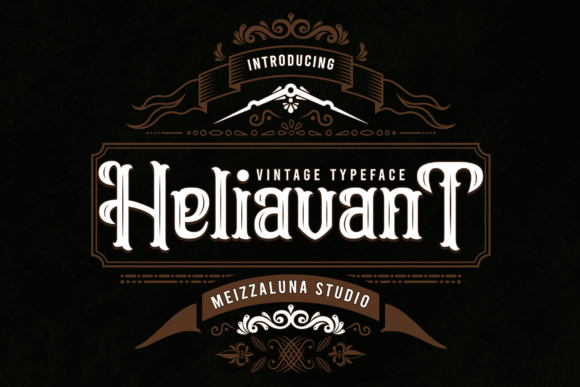
Behold, Heliavant Font – A Masterpiece of Dark Elegance and Victorian Charm
Step into a world of mystique and intrigue with Heliavant Font, the ultimate blackletter font designed to capture hearts and turn heads. Crafted by the visionary meizzalunadesign, this font transcends the boundaries of ordinary typography, offering a captivating fusion of timeless elegance and modern sophistication.
Heliavant's intricate serif characters exude an aura of sophistication, evoking the charm of Victorian-era artistry. Its sweeping curves and delicate flourishes dance across the page, creating a visual symphony that captivates the senses. Whether you seek to craft eye-catching headlines or add a touch of elegance to your designs, Heliavant Font stands ready to unleash your creativity.
With Heliavant as your design companion, you'll embark on a journey of boundless possibilities. Create labels that whisper tales of forgotten times, posters that evoke the grandeur of yesteryear, and banners that command attention with their timeless allure. Heliavant's versatility knows no bounds, making it the perfect choice for a plethora of projects, from branding and packaging to website design and social media graphics.
But Heliavant is more than just a font – it's an experience. Its evocative nature transports you to a realm of imagination and wonder, where words take on a life of their own. As your fingers glide across the keyboard, Heliavant's characters become an extension of your creative spirit, transforming your designs into works of art.
So, if you yearn for a font that captivates, entices, and evokes an era of timeless elegance, look no further than Heliavant Font. Its exquisite design and versatility will leave you breathless, allowing you to create designs that resonate with your audience and leave a lasting impression. Embrace the darkness, embrace the intrigue, and unleash your creativity with Heliavant Font today.